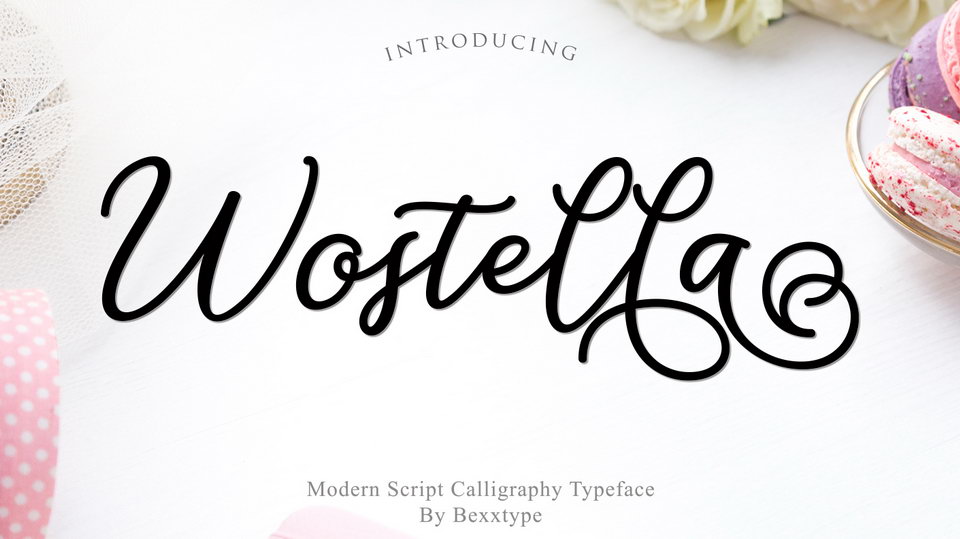
Download Wostella Script – a pretty modern calligraphy font with a lot of charming swashes. It looks beautiful for greeting cards, wedding decoration, quotes, posters, stationery, social media and other amazing things.
Designer: Bexxtype